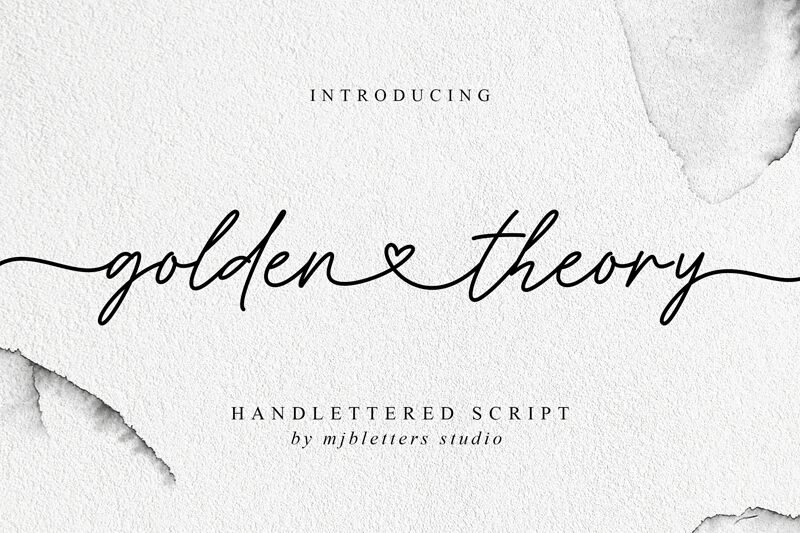
Golden Theory Demo
Golden Theory font by MJB Letters is a light handwritten signature typeface, perfect if you need some fabulous flair to your next project. If you're looking for smooth lines, high contrast and playful mood this font is simply perfect. It has flowing, elegant and dynamic slanted characters making it especially suitable for modern all-caps titles and short texts.
It can be used for various purposes such as logos, headings, t-shirt designs, letterhead, labels, news, weddings invitations and posters.